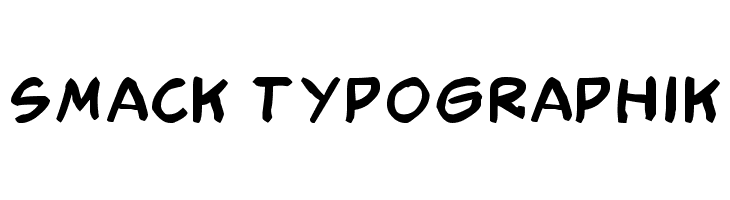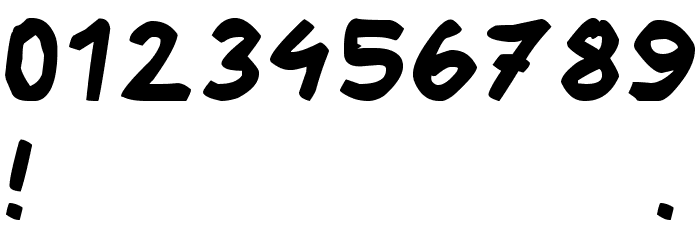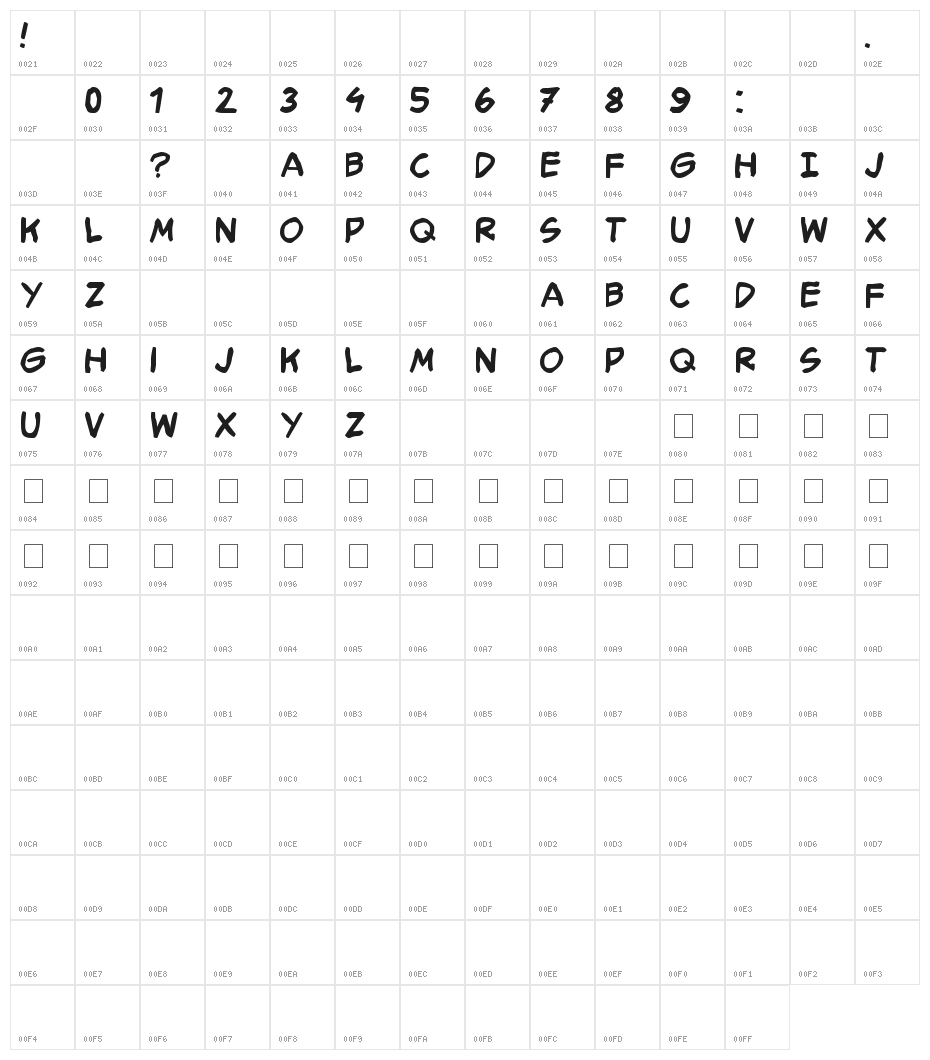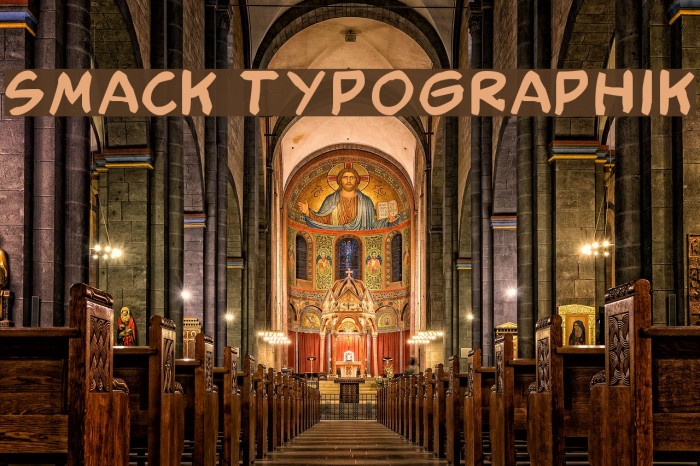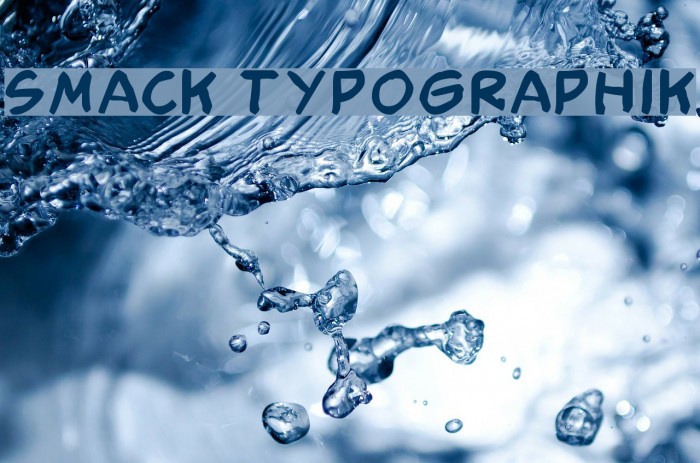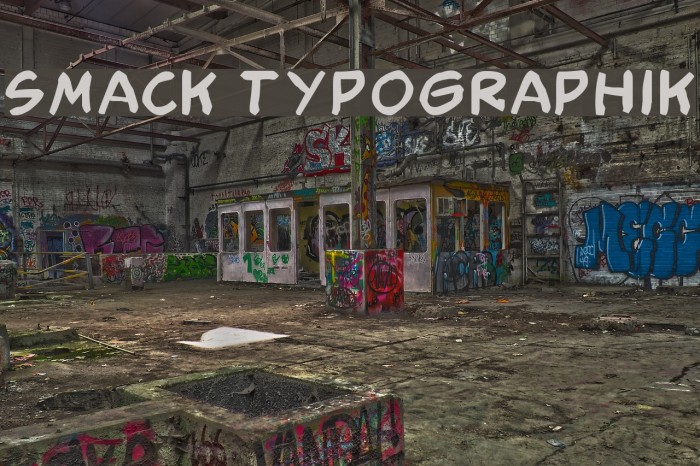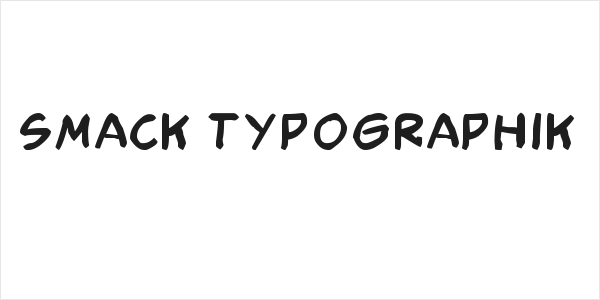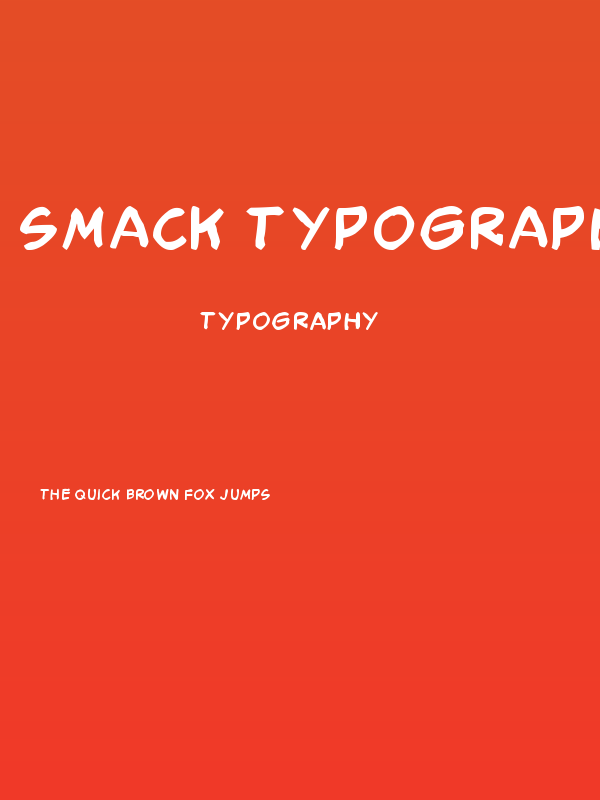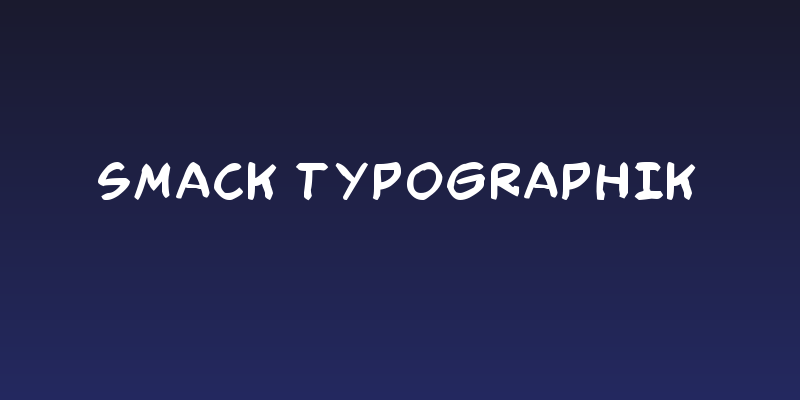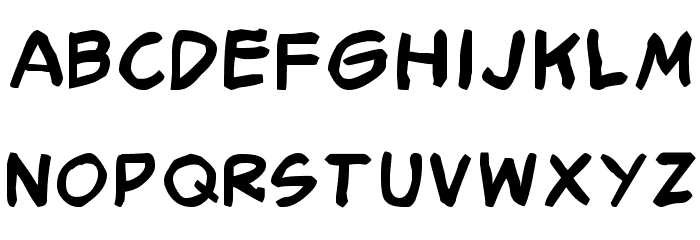
Smack Typographik Font
Smack Typographik Description
This font features a bold and playful handwritten style, characterized by its thick strokes and slightly irregular letterforms. The uppercase letters are prominent and convey a sense of energy and dynamism, making it ideal for attention-grabbing designs. The numbers and special characters maintain the same lively aesthetic, ensuring consistency across different uses. Its informal and friendly appearance makes it suitable for creative projects that require a personal touch.
| Proposed Projects | Ideal for children's books, comic strips, playful branding, and casual invitations. |